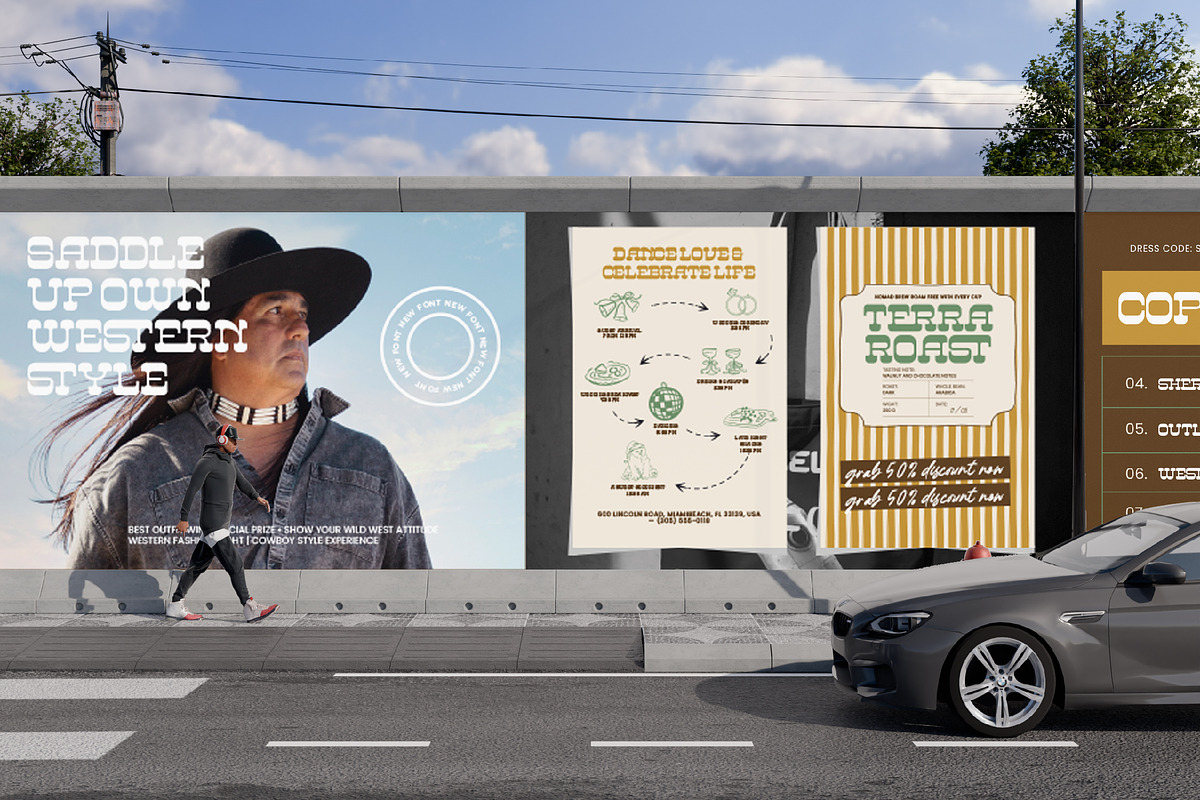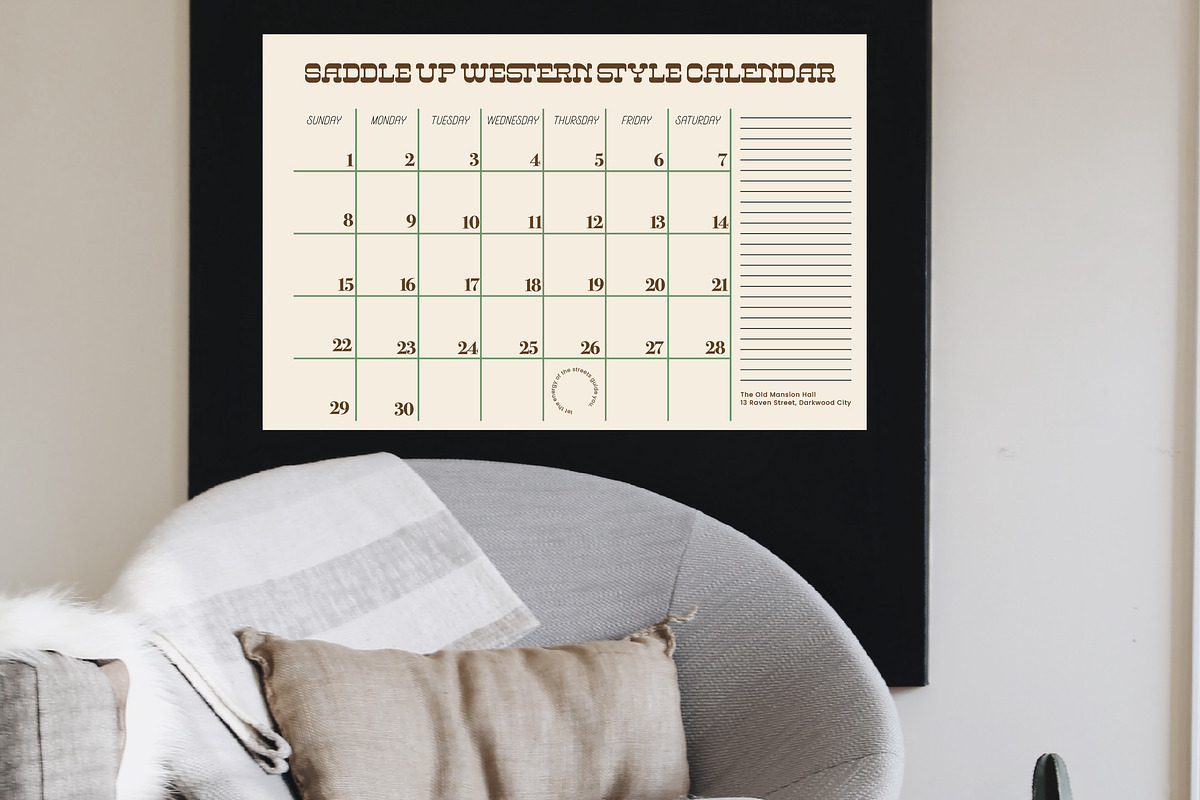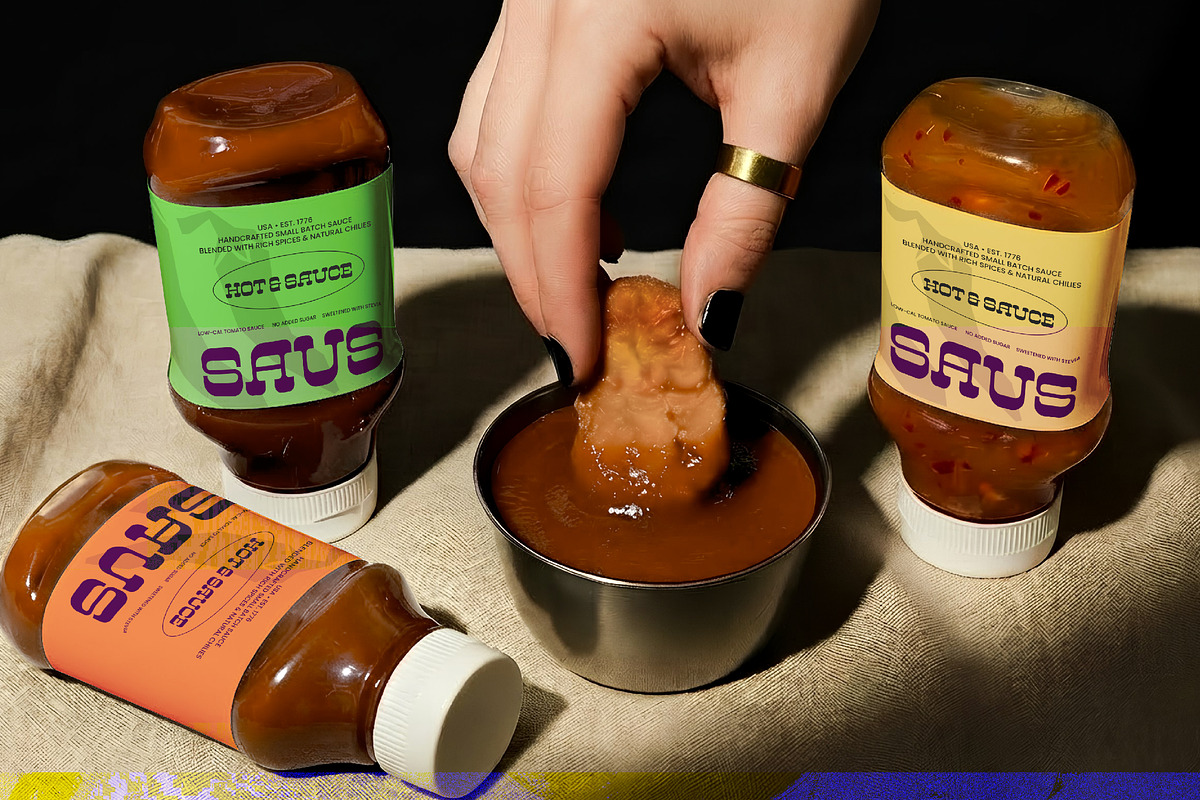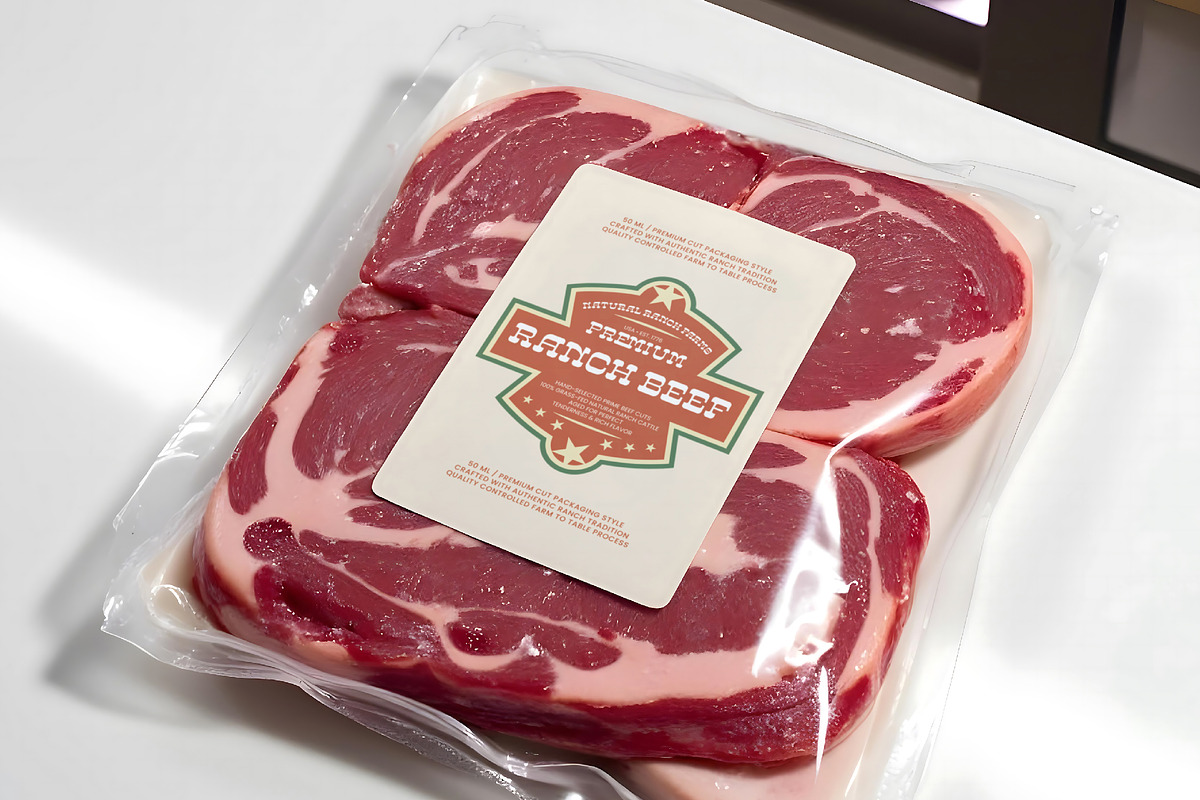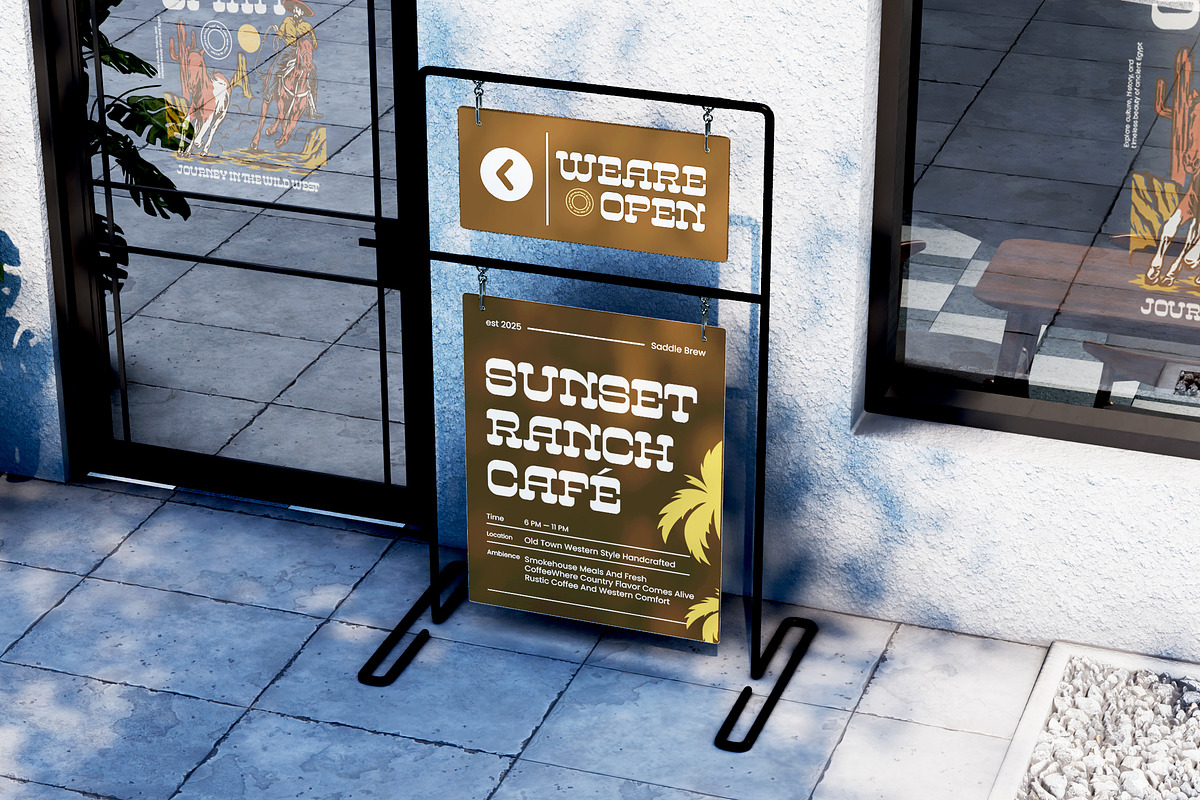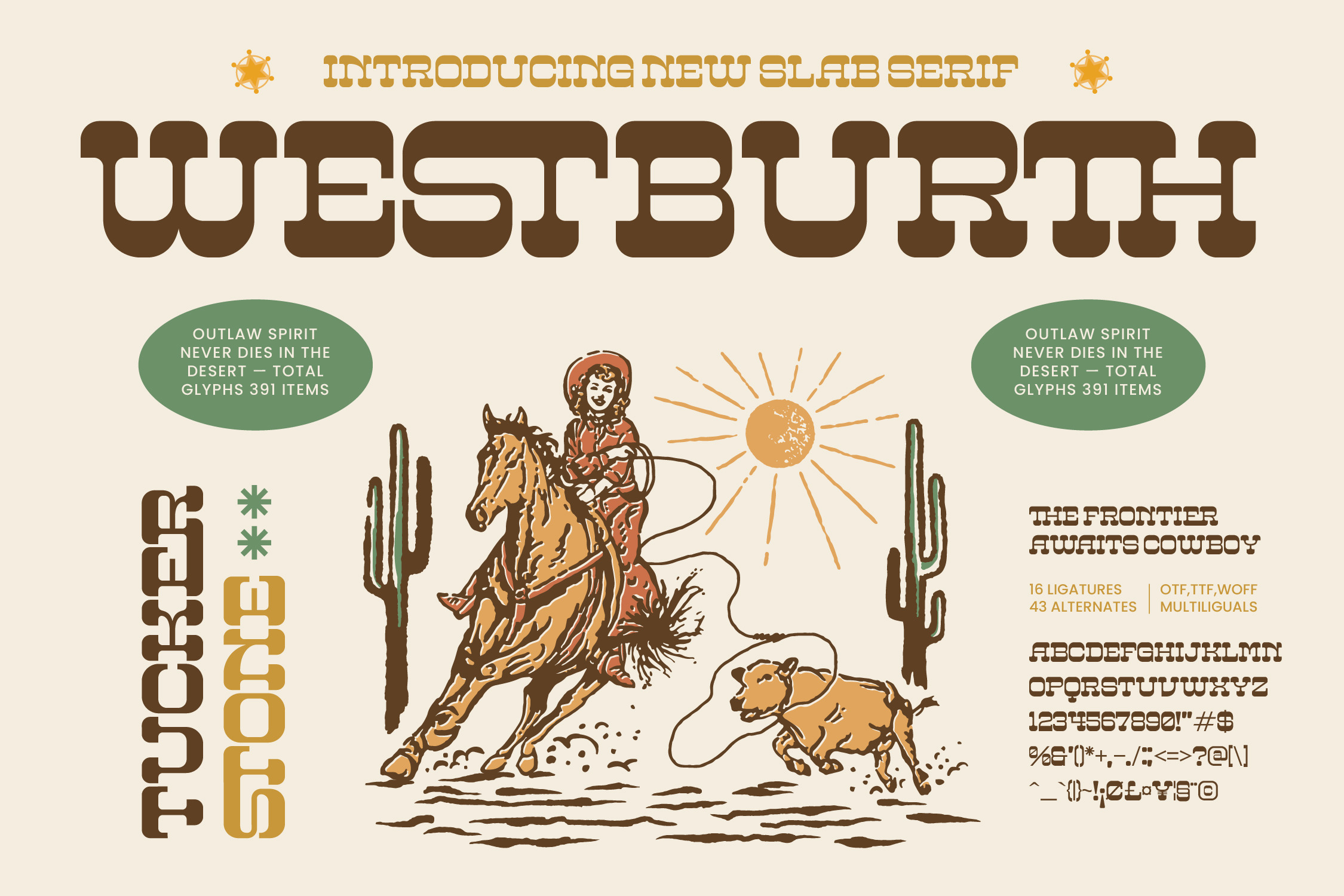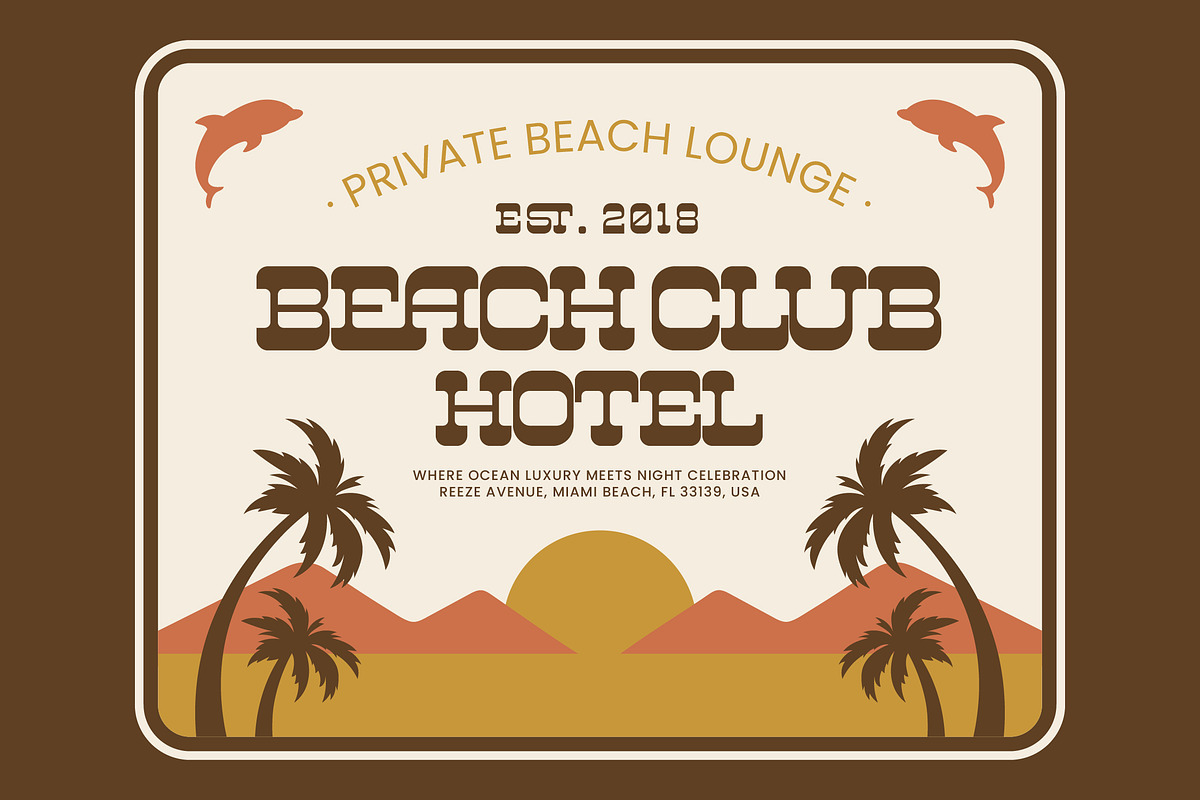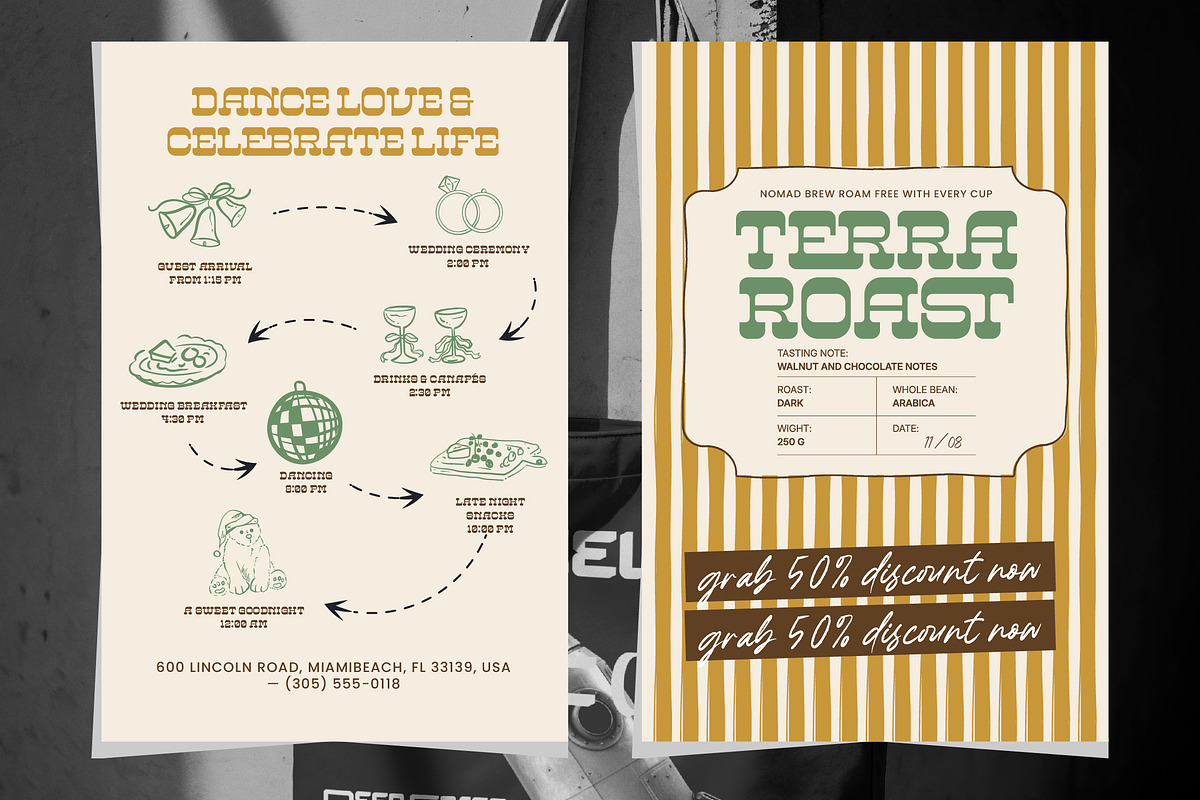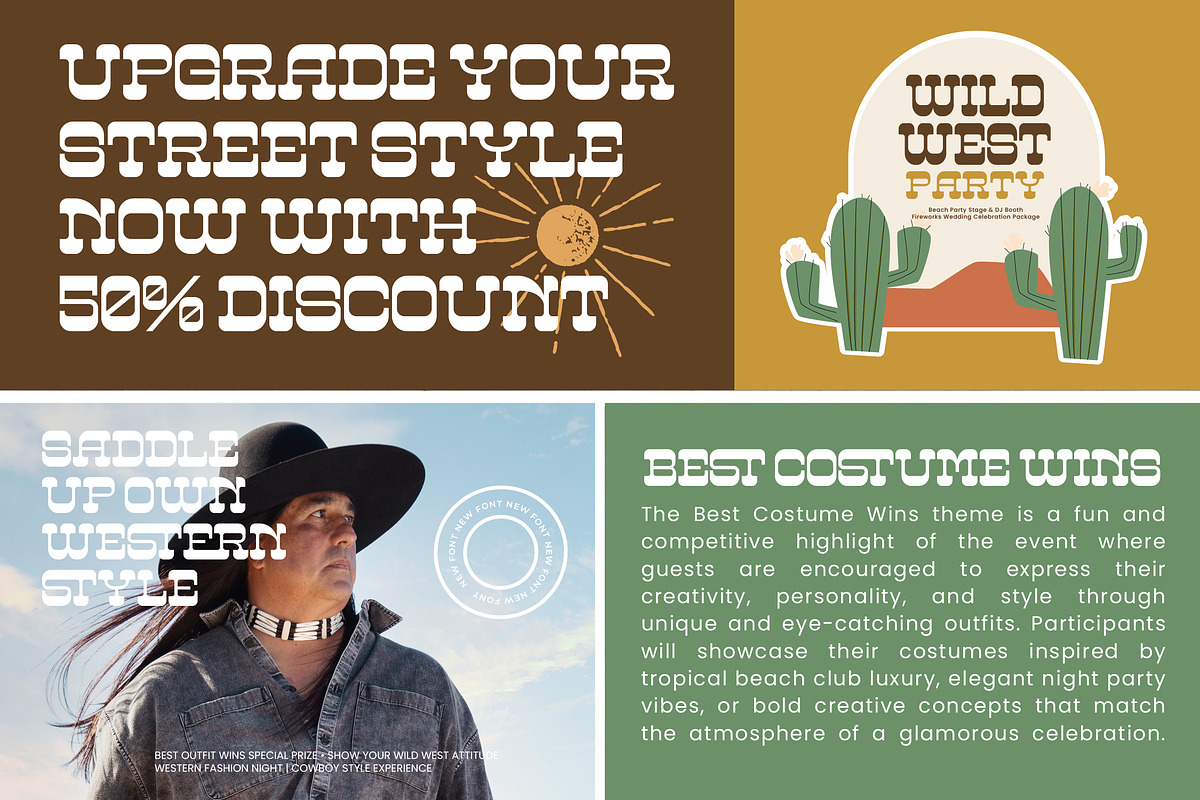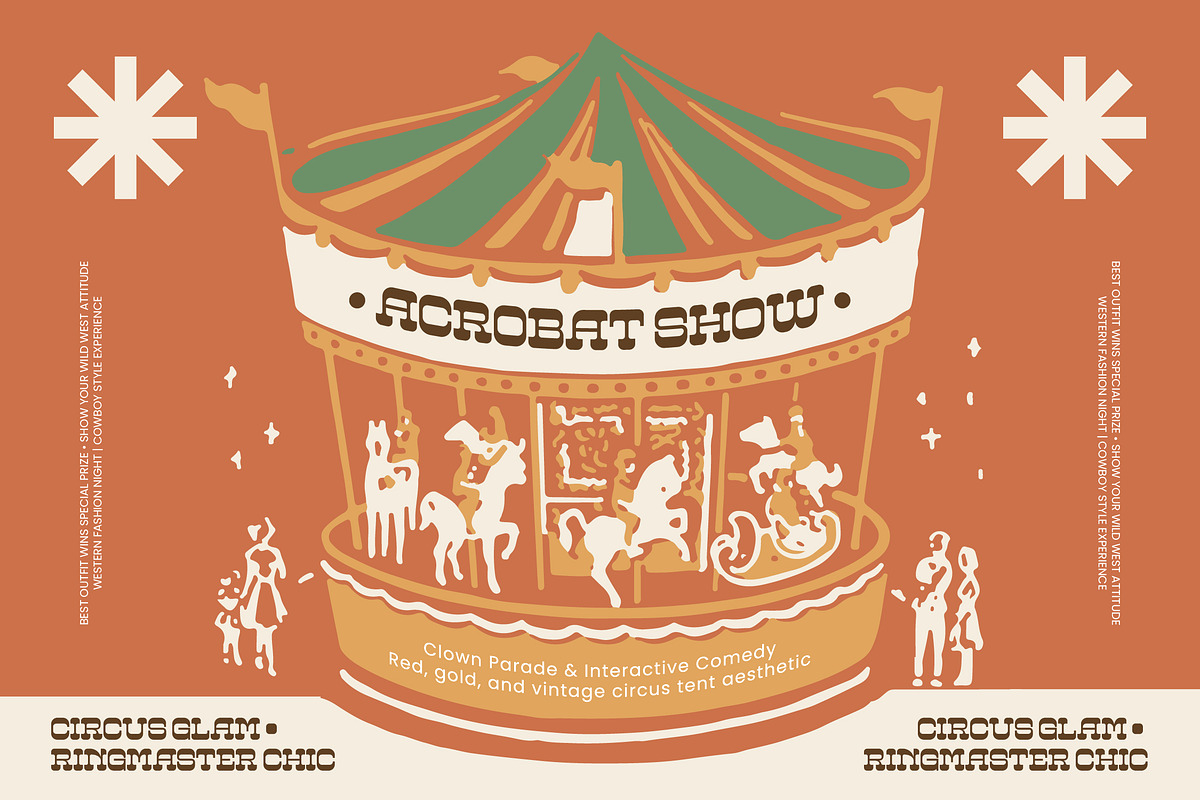
Westburth Western Display Font
Westburth – Western Display Font
Capture the rugged spirit of the American frontier with the commanding presence of Westburth – Western Display Font. This heavy slab serif masterfully balances vintage charm with contemporary precision, offering a high-impact aesthetic that demands attention. Its chunky letterforms evoke the timeless essence of wild-west typography while remaining perfectly suited for modern design trends. For those aiming for a nostalgic retro vibe, this font delivers an unmatched visual weight that defines your creative vision.
Expanding your creative reach is effortless with this comprehensive typeface. With its extensive multilingual support, Westburth – Western Display Font adapts seamlessly across global markets, making it incredibly versatile for international projects and diverse branding needs. This global adaptability ensures your message remains impactful, regardless of the language. By providing a diverse glyph set, it empowers designers to maintain a consistent brand identity while catering to a wide audience on a worldwide scale.
Elevate your brand identity with unparalleled typographic versatility and professional flair. The Westburth – Western Display Font is the ideal application for luxury branding, premium packaging, and bold editorial design. It is perfect for creating distinctive logos, eye-catching posters, and dynamic headlines that require a touch of frontier grit. From lifestyle magazines to heritage apparel brands, its unique personality adds commercial value and a memorable signature to any design project.
Master the art of display typography with professional-grade tools designed for total creative control. Featuring 16 ligatures and 43 alternates, Westburth – Western Display Font allows for unlimited customization. With a total of 391 glyphs, it offers the technical flexibility needed to craft bespoke layouts that stand out. Investing in Westburth – Western Display Font means choosing a high-performance asset that merges illustrative character with flawless legibility, ensuring your work remains iconic and effective.